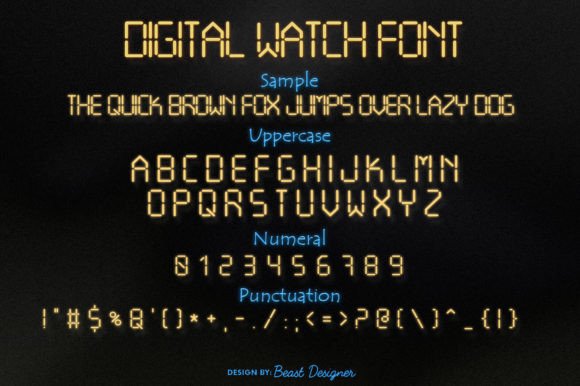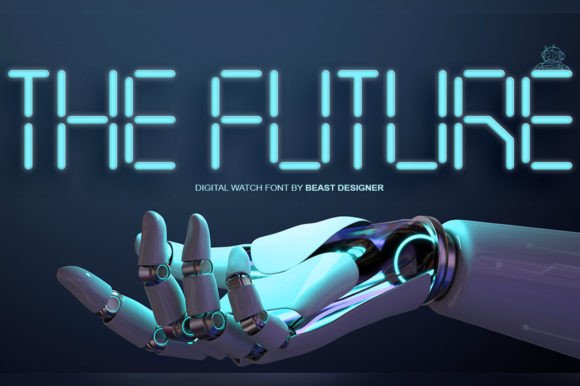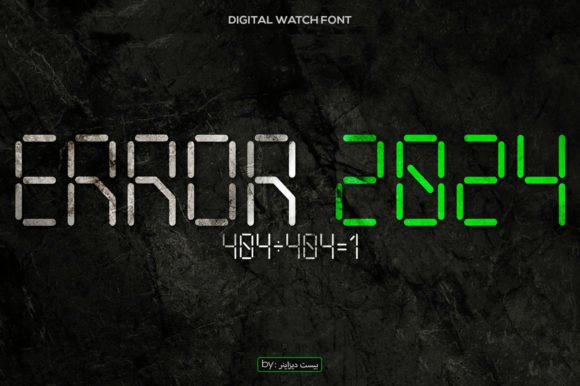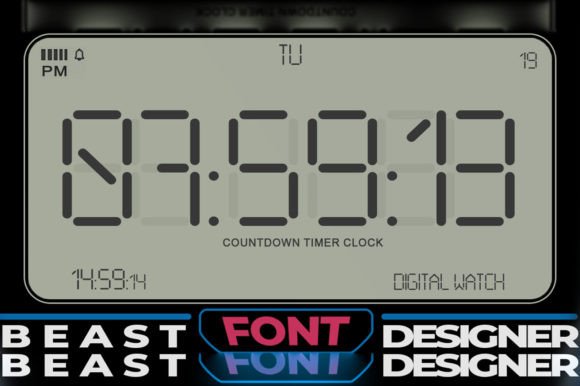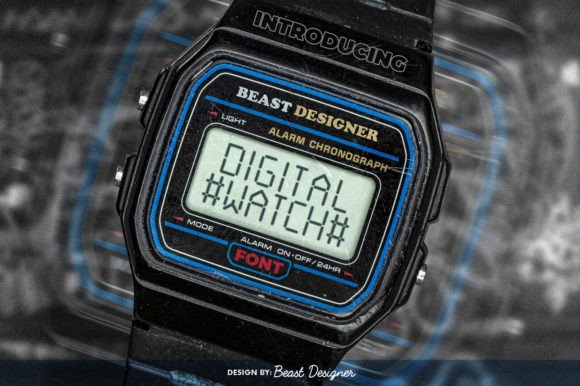
Digital Watch Font: The Ultimate Guide for Designers and Crafters
When it comes to designing digital alarm clocks, smartwatches, or other timekeeping devices, the font used can make all the difference. A clear, legible, and modern font is essential for easy readability, especially in fast-paced environments where every second counts. This is where Digital Watch Font comes into play – a typeface designed specifically for use in digital devices, offering a perfect blend of style, functionality, and legibility.
What is Digital Watch Font?
Digital Watch Font is a typeface designed specifically for use in digital alarm clocks and other timekeeping devices. It is characterized by clear, legible numerals and symbols, and a modern, minimalistic design that is easy to read at a quick glance. The font features a unique combination of straight lines, curves, and geometric shapes, making it instantly recognizable and highly readable, even from a distance.
Key Features of Digital Watch Font
• Clear and Legible: The font features clear, bold, and easily readable numerals and symbols, making it perfect for digital devices where legibility is crucial.
• Modern and Minimalistic: The font boasts a sleek, modern design with clean lines, simple shapes, and a minimalist approach, making it perfect for contemporary designs.
• Geometric Shapes: The font uses a combination of straight lines, curves, and geometric shapes, creating a unique and recognizable style.
• Highly Versatile: Digital Watch Font can be used in various digital devices, including alarm clocks, smartwatches, fitness trackers, and more.
Benefits of Using Digital Watch Font
Using Digital Watch Font in your designs offers several benefits, including:
• Improved Readability: The font’s clear and legible design ensures that your digital device’s display is easy to read, even in bright or low-light conditions.
• Enhanced Aesthetics: The font’s modern and minimalistic design adds a touch of sophistication and style to your digital device, making it more visually appealing.
• Consistency: Using a custom font like Digital Watch Font ensures consistency across your designs, creating a cohesive brand image.
How to Use Digital Watch Font in Your Designs
Using Digital Watch Font in your designs is straightforward. Here are a few tips to get you started:
• Choose the Right Size: Ensure that the font size is large enough to be easily readable, but not so large that it overwhelms the device’s display.
• Select the Right Color: Choose a color that provides sufficient contrast with the device’s background, ensuring optimal readability.
• Experiment with Styles: Digital Watch Font comes in various styles and weights. Experiment with different styles to find the one that best suits your design.
Tips for Crafters and Makers
If you’re a crafter or maker looking to create your own digital devices or accessories, here are a few tips for working with Digital Watch Font:
• Use a High-Quality Display: Ensure that your device’s display is high-quality and suitable for showcasing the font’s clear and legible design.
• Pay Attention to Layout: Pay attention to the layout of your device’s display, ensuring that the font is used consistently and in a way that is easy to read.
• Experiment with Customization: Don’t be afraid to experiment with customizing the font to suit your device’s unique design and style.
Digital Watch Font is a versatile and highly legible typeface designed specifically for use in digital devices. Its modern and minimalistic design makes it perfect for contemporary designs, while its clear and legible numerals and symbols ensure optimal readability. Whether you’re a designer, crafter, or maker, Digital Watch Font is an excellent choice for any digital device or accessory.